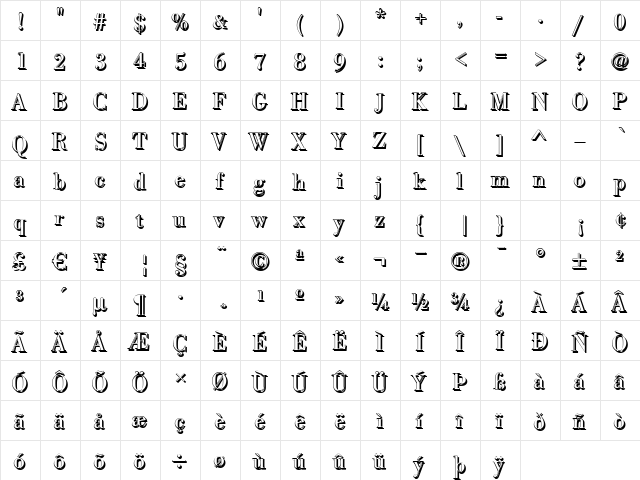
BodoniSh Regular
Design Context for BodoniSh Typeface
BodoniSh offers clean, dependable letterforms without strong stylistic allegiance, making it a practical choice for designers who need flexibility.
Pro Tip: Use BodoniSh in both headline and body roles to test its range before committing to a single application.